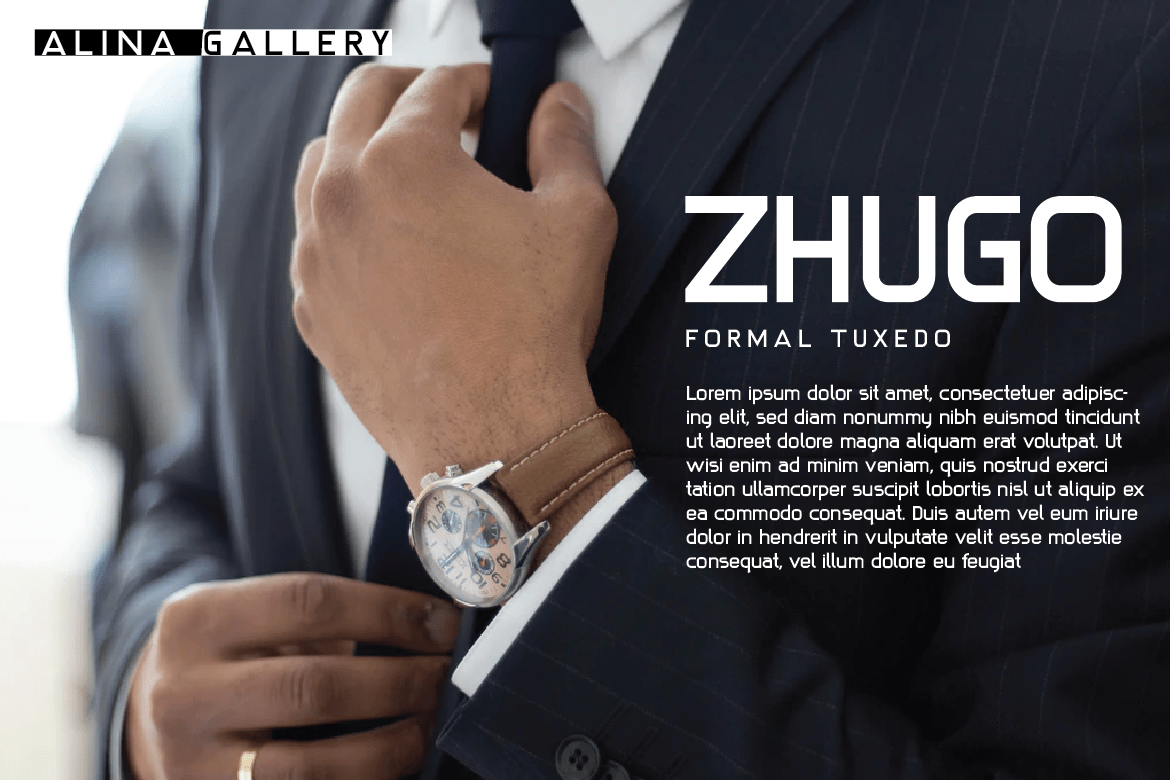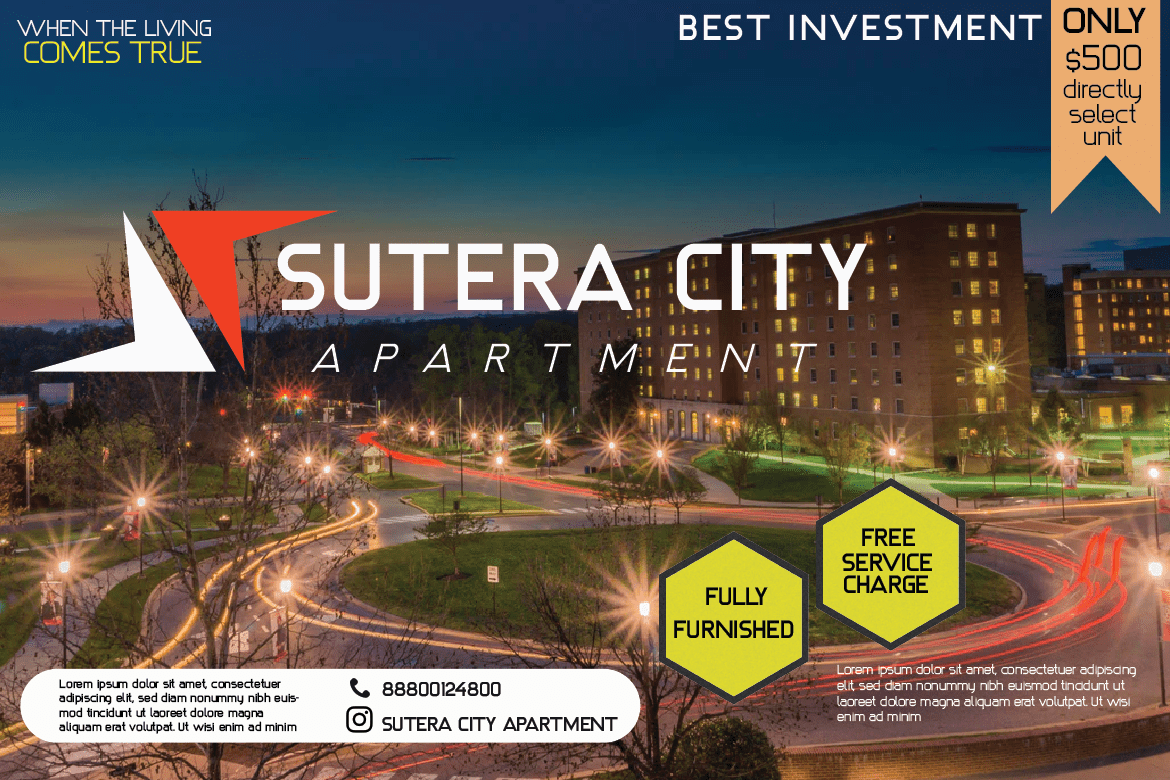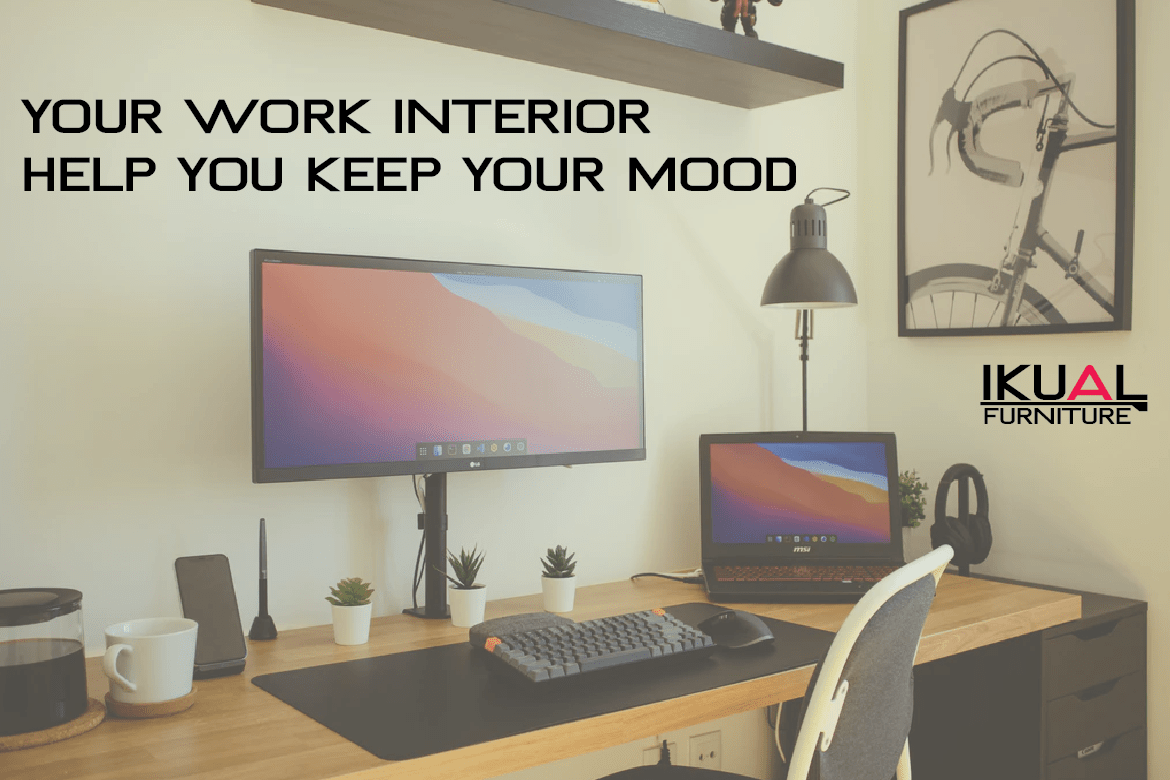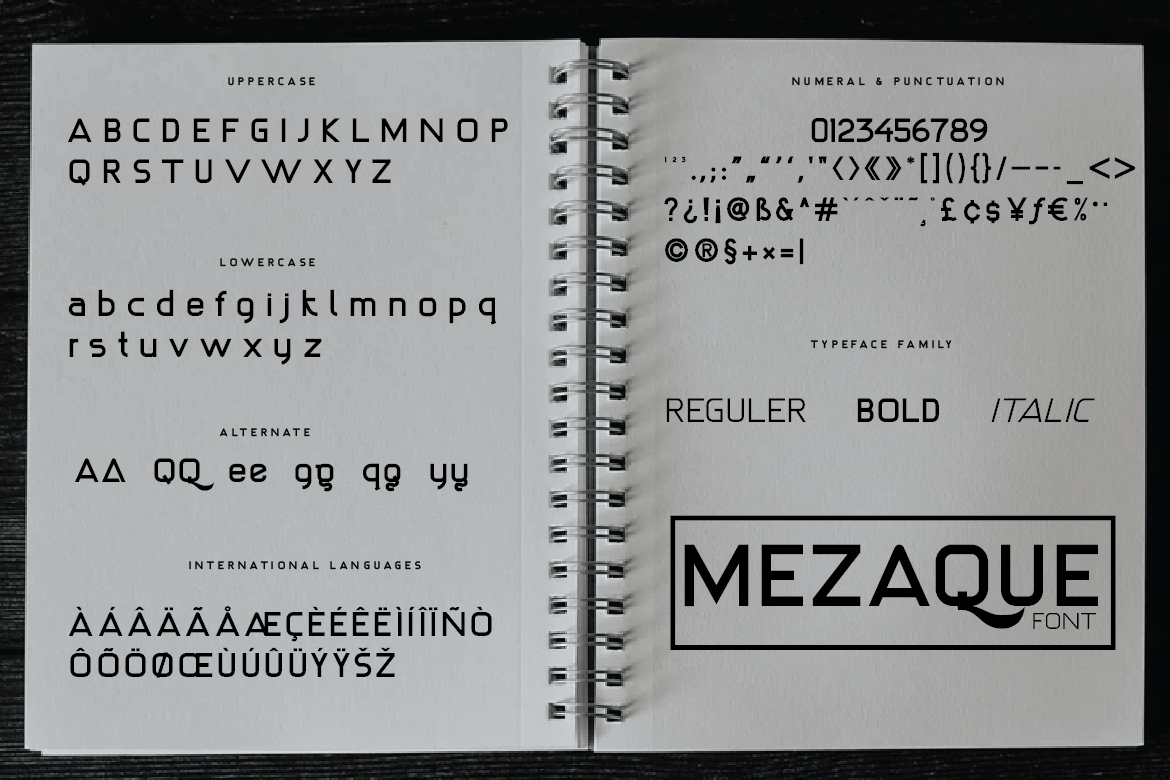
MEZAQUE Sans Serif Font
This is a san serif font that has a distinctive feel to its writing, use this font for your designs and make it easy for people to remember at first glance. so that they always remember the message in each of your designs
This font is designed with a natural touch refined to create portions and compositions that suit your needs. So this font is perfect for crafts, kids writing, adventure posters, food banner titles, wedding invitations, product packaging logos, quotes, social media page covers, furniture banner titles, book covers and more.